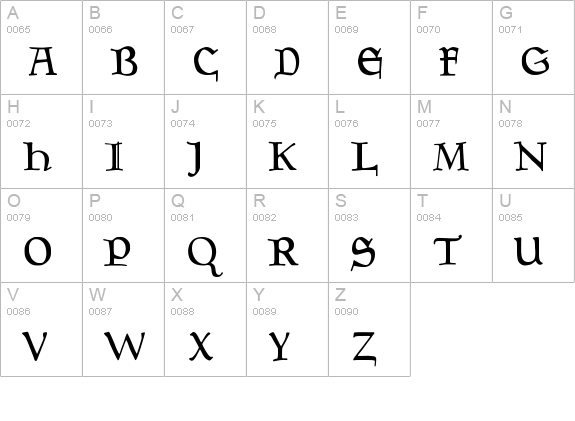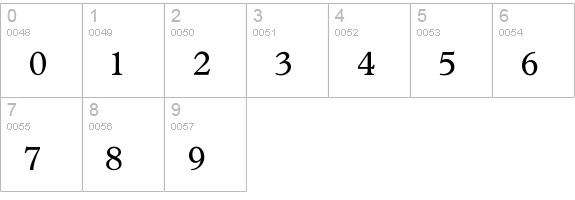
Magic Cards Normal Font Details
Magic Cards Normal is the standard, neutral variant in the Magic typeface family \xE2\x80\x94 well suited to general body text, paragraphs, and standard typographic work.
Introducing the enchanting and captivating Magic Cards Normal font! Immerse yourself in a world of wonder and mystery with this beautifully crafted typeface. Designed to evoke the essence of magic, this font will transport you to a realm where spells are cast and adventures unfold. With its intricate and artistic design, Magic Cards Normal captures the essence of ancient scrolls and mystical incantations. Each letter is meticulously crafted, adorned with ornate details and elegant curves, creating a truly spellbinding visual experience. But the magic doesn't stop there! Magic Cards Normal is not only visually appealing, but also incredibly versatile. Whether you're working on a fantasy novel, designing a game, or simply adding a touch of enchantment to your projects, this font will elevate your creations to a whole new level. And the best part? Magic Cards Normal is freely available to download at FontsMarket.com. That's right, you can unleash the power of this extraordinary font without any cost. Simply visit FontsMarket.com and discover the magic for yourself. So, don't miss out on the opportunity to add a touch of enchantment to your designs. Download Magic Cards Normal today and let your imagination soar to new heights. Get ready to embark on a journey filled with wonder, mystery, and unlimited creative possibilities.